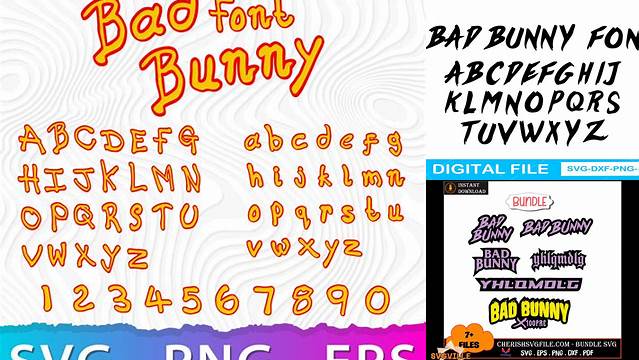
Bad Bunny Font SVG: Design Like A Pro!
Hey guys! Are you a huge fan of Bad Bunny and want to incorporate his iconic style into your design projects? Well, you've come to the right place! In this comprehensive guide, we'll dive deep into the world of Bad Bunny font SVGs, exploring everything you need to know to create eye-catching designs that capture the essence of this global superstar. Whether you're a seasoned designer or just starting out, this article will equip you with the knowledge and resources to unleash your creativity and make your projects truly stand out.
What is a Bad Bunny Font SVG?
Let's start with the basics. What exactly is a Bad Bunny font SVG? An SVG, or Scalable Vector Graphic, is a vector image format that allows you to scale images without losing quality. This is crucial for design projects where you might need to resize your graphics for various applications, from small social media posts to large banners. When we talk about a Bad Bunny font SVG, we're referring to a digital font that mimics the unique typography often associated with Bad Bunny's branding, album art, and merchandise. These fonts typically incorporate bold, stylized letterforms and sometimes even playful or edgy elements that reflect Bad Bunny's artistic personality.
Bad Bunny font SVGs are incredibly versatile for a wide range of creative projects. Think about designing custom apparel, like t-shirts or hoodies, featuring lyrics from his hit songs. Imagine creating stunning posters or flyers for a Bad Bunny-themed party or event. Or maybe you want to add a touch of Bad Bunny's flair to your social media graphics, website headers, or even your personal stationery. The possibilities are truly endless! Using an SVG format ensures that your text will look crisp and clean, no matter how large or small you scale it. This is especially important for designs that need to be printed, as raster images (like JPEGs or PNGs) can become pixelated when enlarged. With Bad Bunny font SVGs, you can rest assured that your designs will always look professional and polished.
Furthermore, these fonts can be easily customized to fit your specific needs. You can change the color, add effects like shadows or outlines, and even manipulate the individual letterforms to create truly unique designs. This level of flexibility makes Bad Bunny font SVGs a powerful tool for designers of all skill levels. Whether you're a seasoned pro or just starting out, you'll find that working with SVGs opens up a whole new world of creative possibilities. So, if you're looking to add a touch of Bad Bunny's signature style to your projects, a Bad Bunny font SVG is the perfect place to start.
Why Use a Bad Bunny Font SVG?
So, why should you specifically opt for a Bad Bunny font SVG over other font formats? There are several compelling reasons, let's break it down, guys! First and foremost, the scalability of SVGs is a massive advantage. As mentioned earlier, you can resize an SVG image to any size without sacrificing quality. This means your Bad Bunny-inspired designs will look sharp and professional whether they're displayed on a small phone screen or printed on a billboard. This is a critical factor for maintaining consistency across different platforms and applications. Imagine designing a logo using a raster font and then realizing it looks blurry when printed on a large banner – that's a design disaster you can easily avoid by using an SVG font!
Beyond scalability, Bad Bunny font SVGs offer superior flexibility in terms of customization. Because they are vector-based, you can easily modify individual elements of the font, such as the stroke width, fill color, and even the shape of the letters themselves. This level of control allows you to create truly unique and personalized designs that perfectly match your vision. Want to add a gradient to your Bad Bunny font? No problem! Want to slightly alter the curve of a letter to create a more dynamic look? You got it! The possibilities are limited only by your imagination. This level of customization is simply not possible with raster-based font formats, which treat each letter as a fixed image.
Another significant advantage of using Bad Bunny font SVGs is their compatibility with various design software. Most professional design programs, such as Adobe Illustrator, Adobe Photoshop, and CorelDRAW, fully support SVG files. This means you can seamlessly incorporate Bad Bunny fonts into your existing workflows without having to worry about compatibility issues. Furthermore, many online design tools and platforms also support SVGs, making it easy to create stunning designs directly in your web browser. This widespread compatibility makes Bad Bunny font SVGs a versatile choice for designers working across different platforms and with different tools.
Finally, using a Bad Bunny font SVG allows you to capture the specific aesthetic and vibe associated with Bad Bunny's brand. His unique style is instantly recognizable, and using a font that reflects this can help you create designs that resonate with his fans and followers. Whether you're designing merchandise, social media graphics, or event promotions, a Bad Bunny font SVG can add a touch of authenticity and excitement to your projects. In essence, choosing an SVG format ensures that your Bad Bunny-inspired designs will not only look great but also be versatile, customizable, and compatible with a wide range of design tools and platforms. So, if you're serious about creating professional-quality designs that capture the essence of Bad Bunny's style, an SVG font is the way to go!
Where to Find Bad Bunny Font SVGs
Alright, so you're convinced that a Bad Bunny font SVG is the way to go. But where do you actually find one? Don't worry, guys, I've got you covered! There are several avenues you can explore to find the perfect Bad Bunny-inspired font for your projects. One of the most popular options is to search online marketplaces that specialize in design resources. Websites like Etsy, Creative Market, and Design Cuts are treasure troves of unique fonts, including many that are inspired by popular artists like Bad Bunny. These marketplaces often feature the work of independent designers, so you're likely to find fonts that are both high-quality and distinct.
When browsing these marketplaces, be sure to use relevant keywords in your search, such as "Bad Bunny font," "Latin trap font," or "urban font." You can also filter your search results by file type to specifically look for SVGs. Take the time to carefully review the font previews and descriptions to ensure that the font matches your desired aesthetic. Pay attention to the overall style of the font, as well as the individual letterforms and any special characters that are included. It's also a good idea to check the font's licensing terms to make sure you're allowed to use it for your intended purpose, whether it's for personal or commercial projects. Many designers offer different licensing options depending on the scale and scope of your usage.
So there you have it, guys! A comprehensive guide to using Bad Bunny font SVGs in your design projects. We've covered everything from what a Bad Bunny font SVG is and why you should use one, to where to find them and how to incorporate them into your designs. We've even shared some killer tips for creating stunning visuals that capture the essence of Bad Bunny's iconic style. Remember, the key is to embrace creativity, experiment with different techniques, and have fun with it! Whether you're designing merchandise, social media graphics, or event promotions, a Bad Bunny font SVG can add a touch of authenticity and excitement to your projects. So go ahead, unleash your inner designer and start creating something amazing. And remember, siempre Picheo!